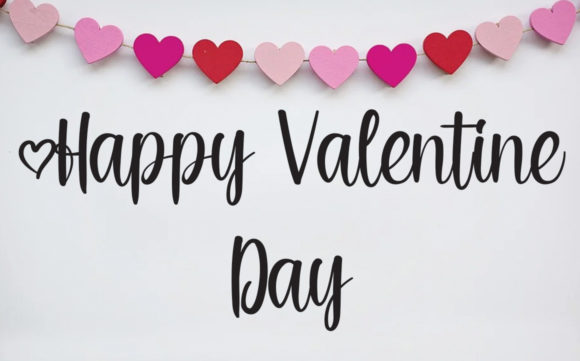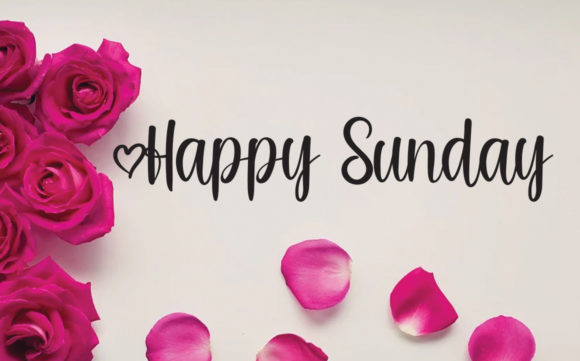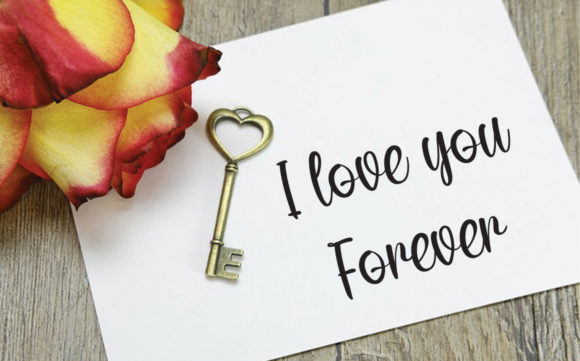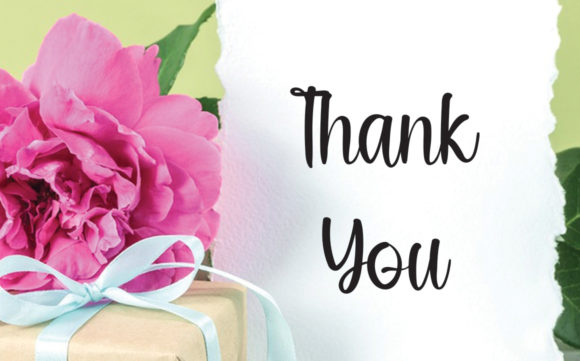
Introducing Heart Font: The Sweet and Romantic Handwritten Font for Your Design Needs
Are you looking for a font that exudes love, care, and romance? Look no further than Heart Font, a beautiful handwritten font that features a delicate flow, perfect for making your designs stand out. In this article, we’ll dive into the world of Heart Font, exploring its features, uses, and benefits for designers and crafters alike.
What is Heart Font?
Heart Font is a sweet and romantic handwritten font that is designed to add a touch of elegance and sophistication to your designs. Its delicate flow and cursive style make it perfect for creating beautiful wall displays, wedding invitations, social media post logos, and any project that requires impressive typography.
Key Features of Heart Font
- Handwritten style: Heart Font features a beautiful handwritten style that is both elegant and playful.
- Delicate flow: The font’s delicate flow makes it perfect for creating beautiful, flowing text that is easy to read.
- Romantic feel: Heart Font is designed to evoke feelings of love and romance, making it perfect for wedding invitations, Valentine’s Day designs, and other romantic projects.
- Versatile: Heart Font can be used for a wide range of design projects, from wall displays to social media posts.
Uses of Heart Font
Heart Font is a versatile font that can be used for a wide range of design projects, including:
- Wedding invitations: Heart Font is perfect for creating beautiful wedding invitations that set the tone for a romantic and elegant wedding.
- Wall displays: Use Heart Font to create stunning wall displays that add a touch of elegance to any room.
- Social media posts: Heart Font is perfect for creating eye-catching social media posts that stand out from the crowd.
- Logos: Use Heart Font to create beautiful logos that reflect your brand’s personality and style.
Benefits of Using Heart Font
There are many benefits to using Heart Font in your design projects, including:
- Elegant and sophisticated: Heart Font adds a touch of elegance and sophistication to any design project.
- Easy to read: The font’s delicate flow and clear style make it easy to read, even at small sizes.
- Versatile: Heart Font can be used for a wide range of design projects, making it a great addition to any designer’s toolkit.
- Unique: Heart Font is a unique font that will help your designs stand out from the crowd.
Tips for Using Heart Font
Here are a few tips for using Heart Font in your design projects:
- Pair with other fonts: Heart Font pairs well with other fonts, such as sans-serif fonts, to create a beautiful contrast.
- Use for headings: Heart Font is perfect for use as a heading font, adding a touch of elegance and sophistication to your designs.
- Experiment with colors: Heart Font looks great in a range of colors, from soft pastels to bold brights.
Heart Font is a beautiful handwritten font that is perfect for designers and crafters looking to add a touch of elegance and sophistication to their designs. With its delicate flow, romantic feel, and versatile style, Heart Font is a great addition to any designer’s toolkit. Whether you’re creating wedding invitations, wall displays, or social media posts, Heart Font is sure to make your designs stand out.